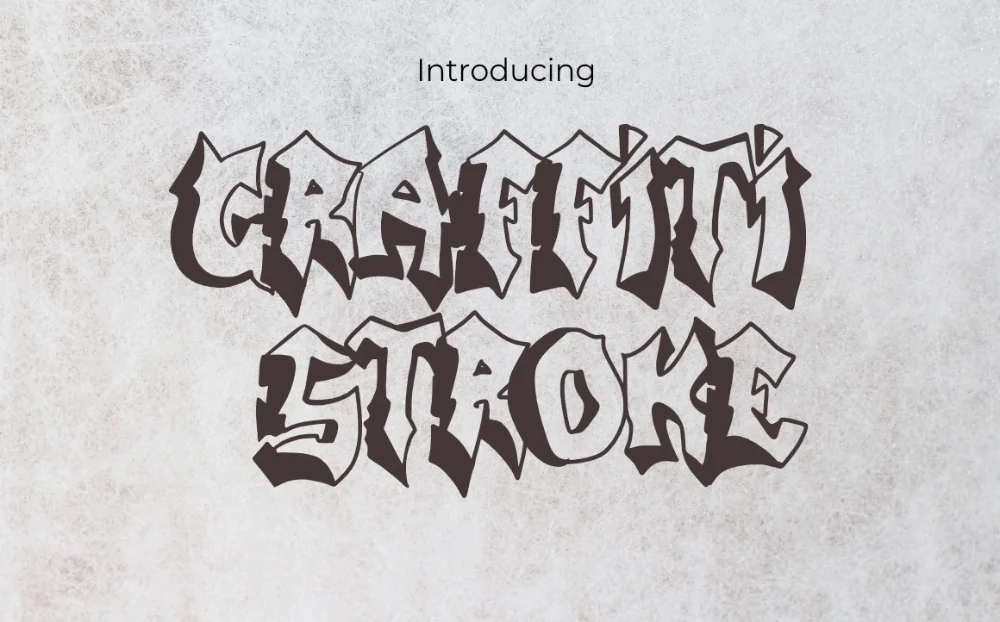
Broad Stroke Graffiti Font
Among the brush stroke graffiti font options in this library, this alphabet is the one worth trying first. Wide brush marks with visible pressure changes from end to end. The closest thing here to a loaded paint brush.
Strokes swell in the middle and taper at both ends, and the edges carry slight ragged texture from the bristles. Letters connect at natural points so words flow rather than sit apart.
Ideal for hand-lettered style headlines, café chalkboard graphics, apparel prints and packaging.